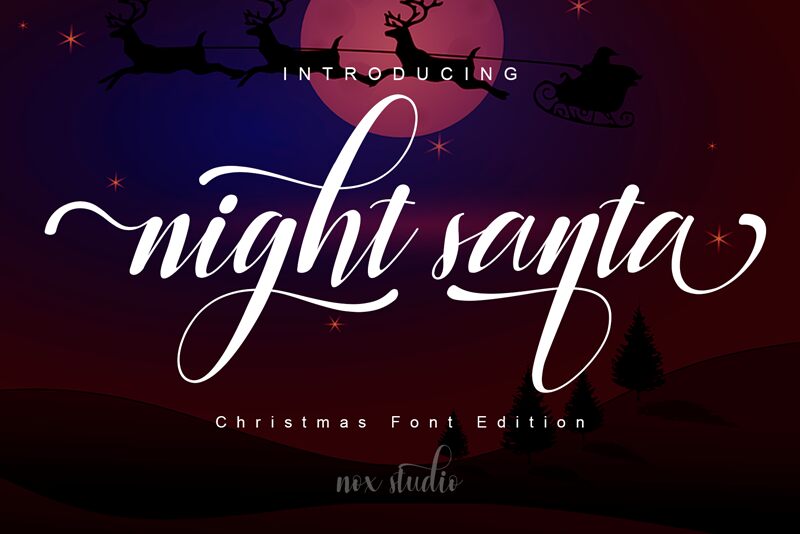
Night Santa
Night Santa, designed by Nox Studio 2021 (Sarif Hidayat), is a beautiful calligraphy font that is perfect for adding a whimsical and romantic touch to any project. Use it on wedding or holiday invitations, greeting cards, logos, and more.